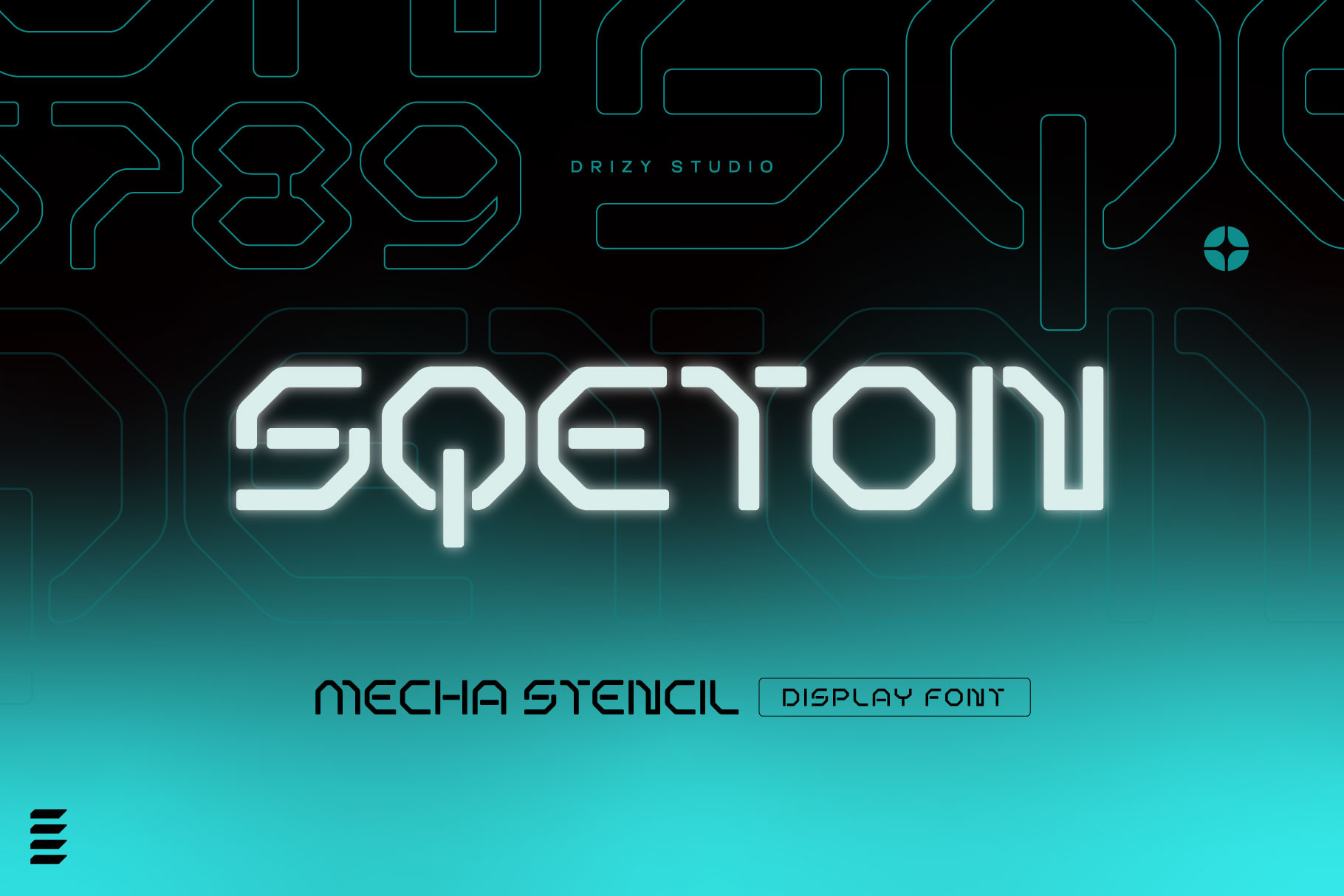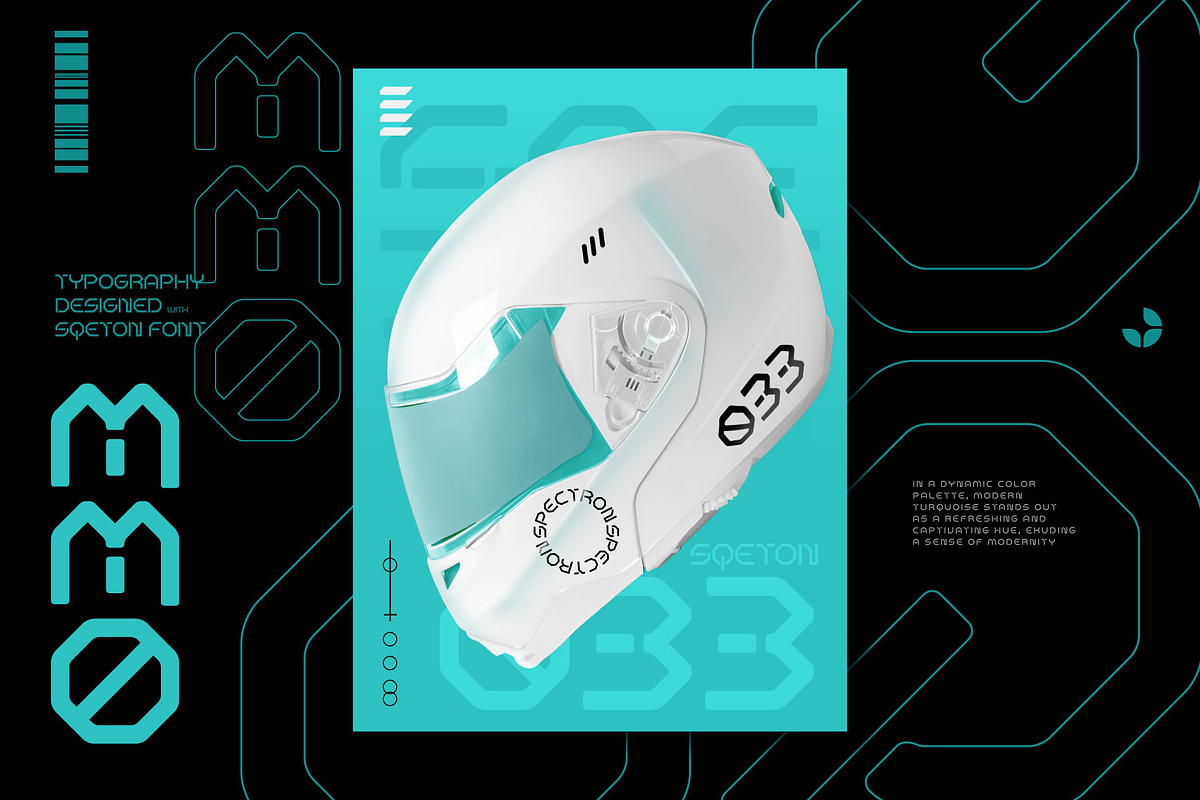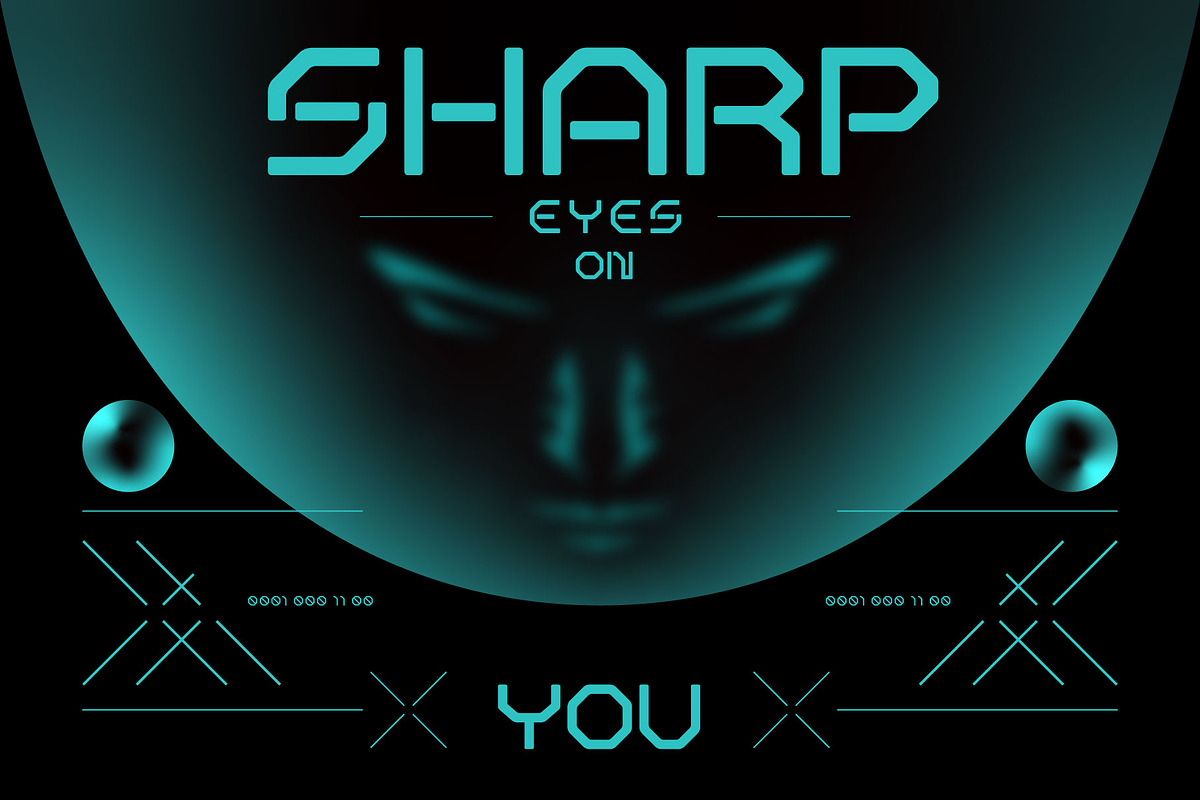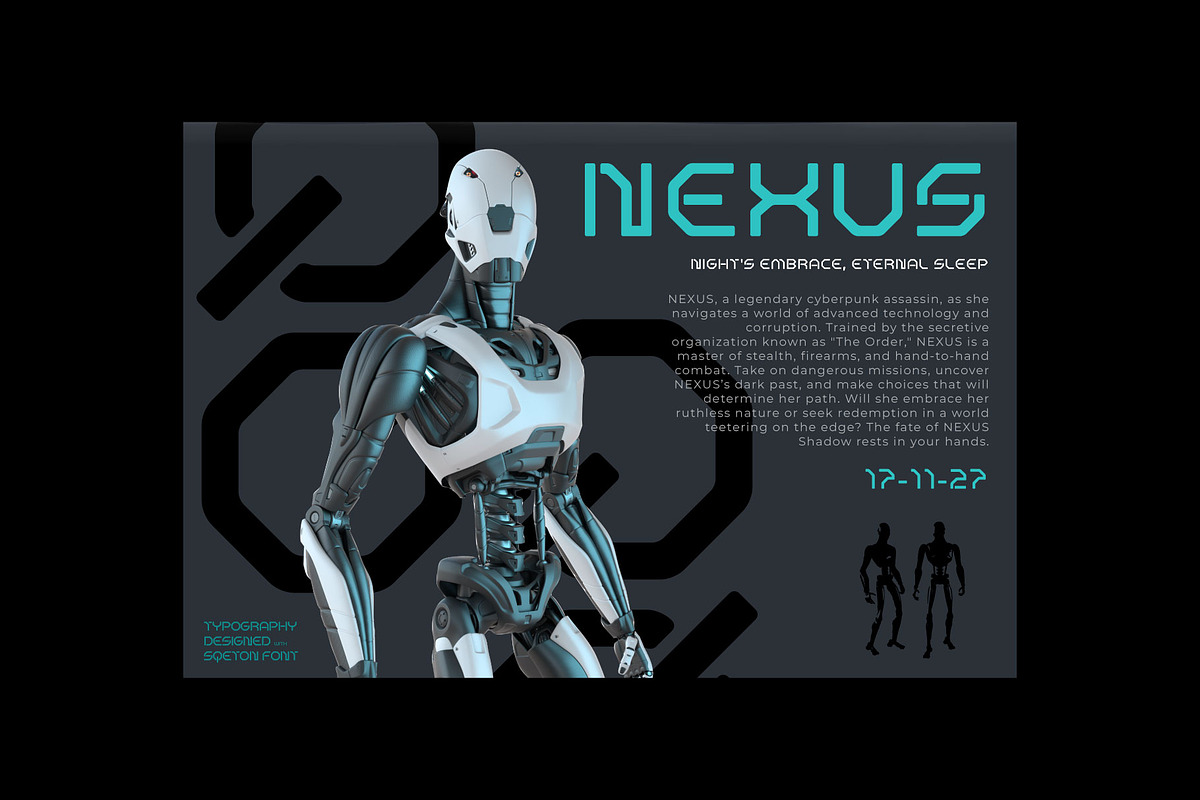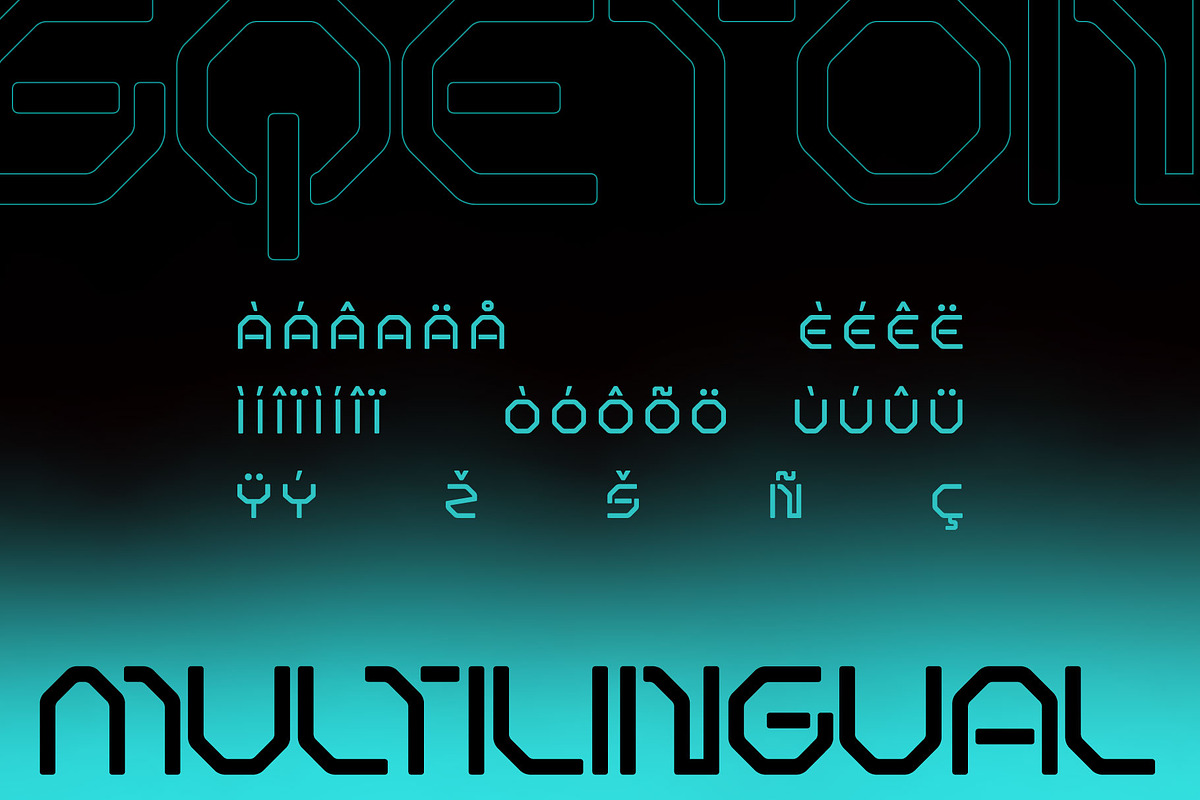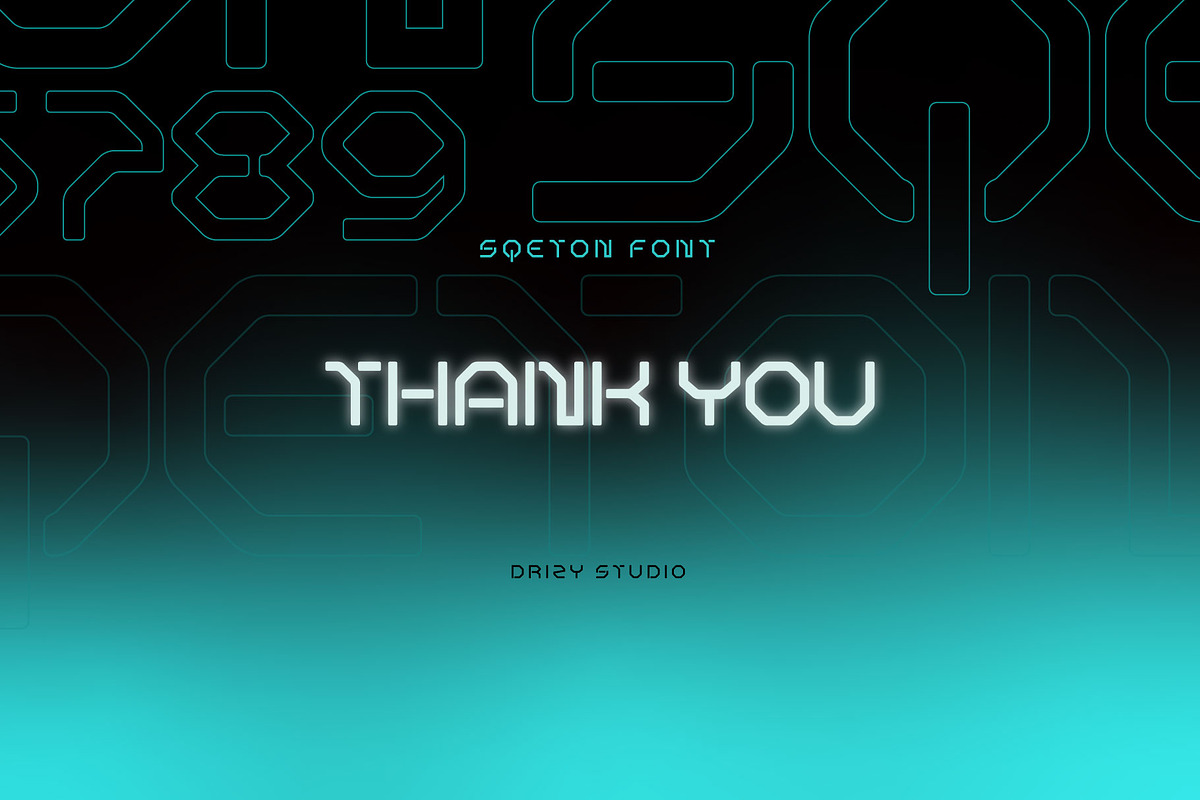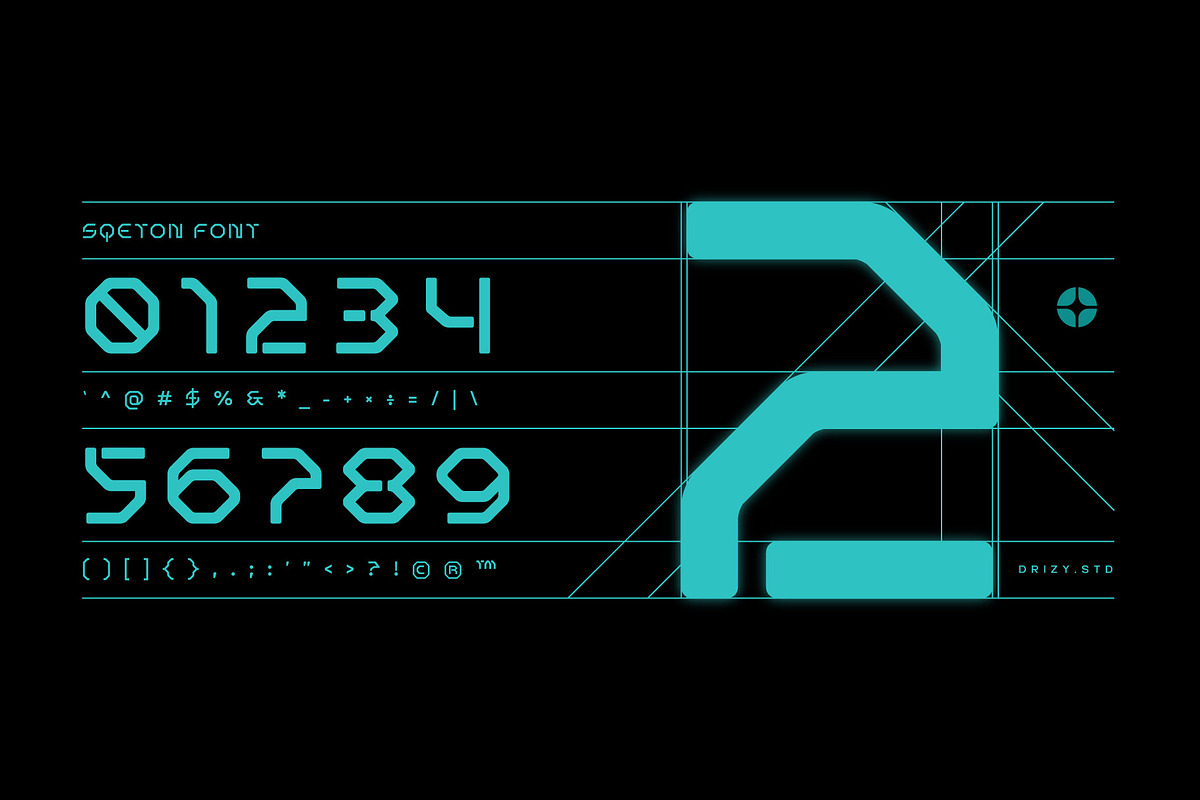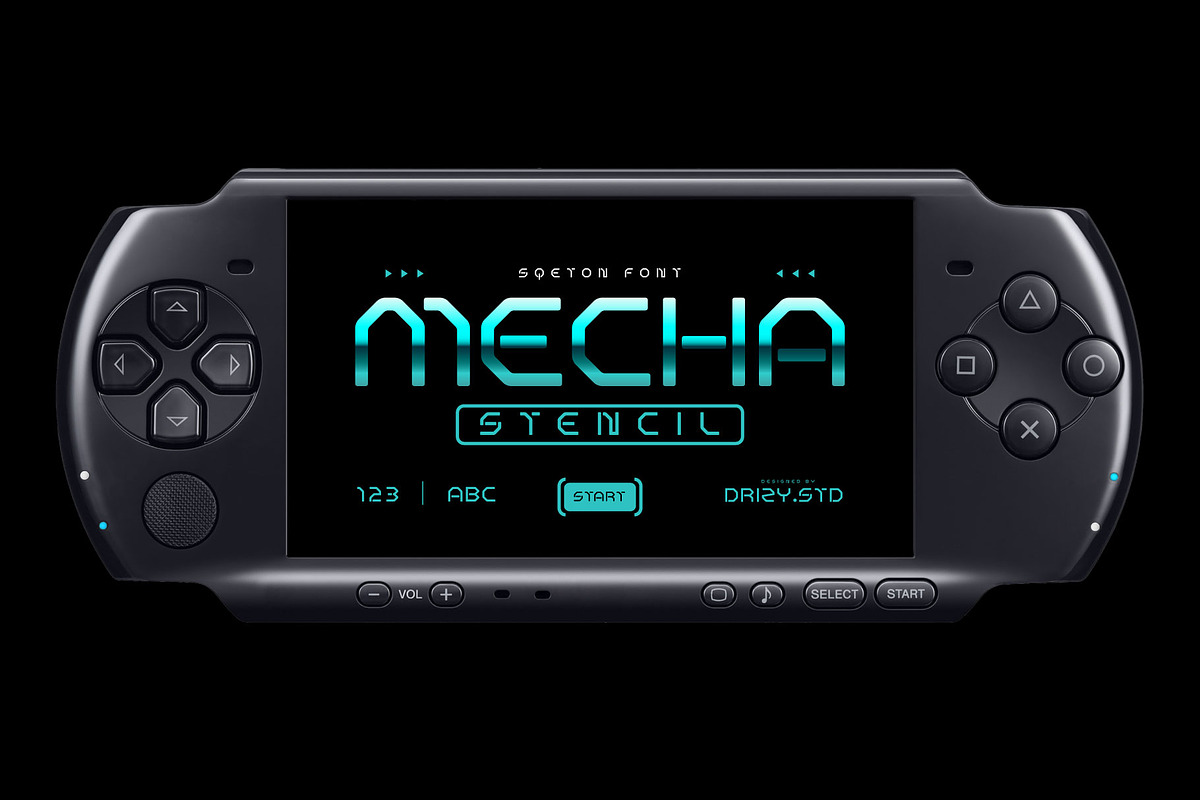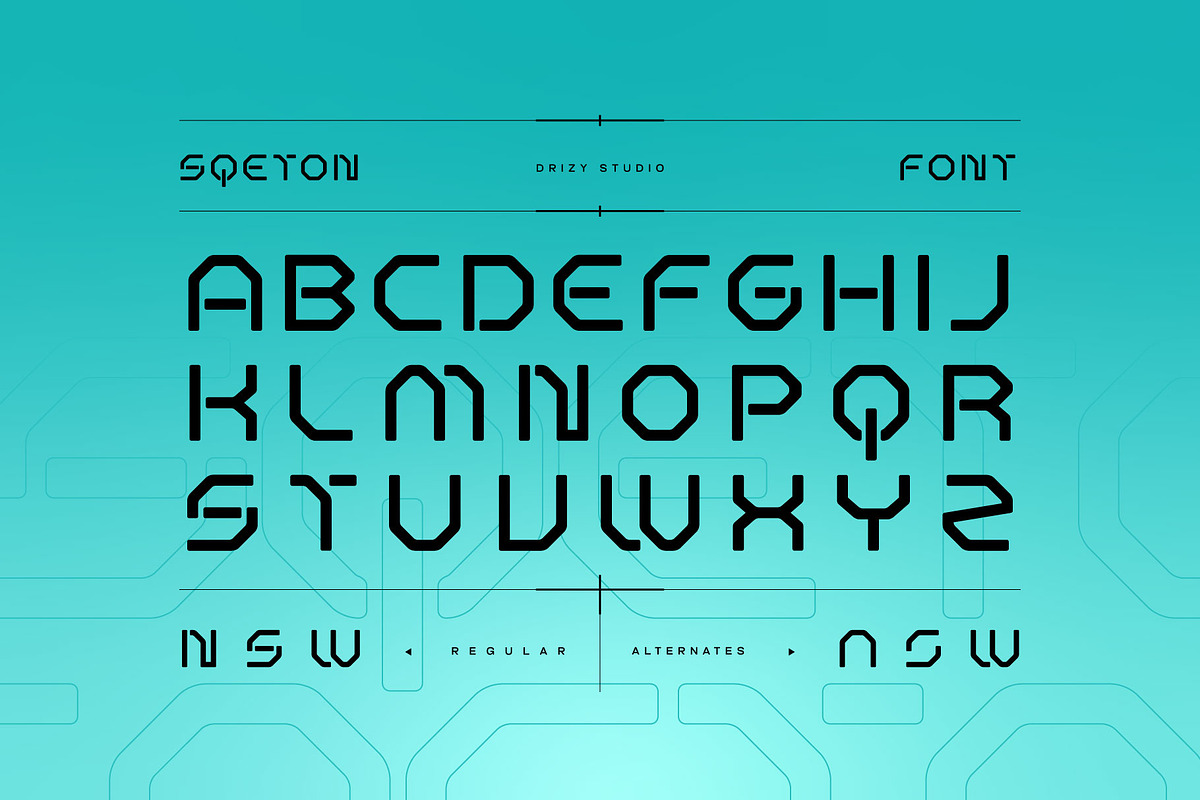
Sqeton - Mecha Stencil Display Font
Introducing Sqeton - Mecha Stencil Display Font, a cutting-edge typeface that seamlessly blends sleek sophistication with a touch of futuristic flair. This font is meticulously crafted to make a bold statement, perfect for projects that demand a modern, industrial, or sci-fi aesthetic.
Sqeton features: Character Set Punctuation & Numbers Multilingual Support Alternates